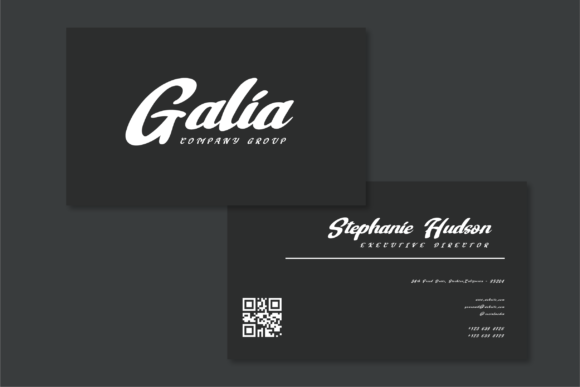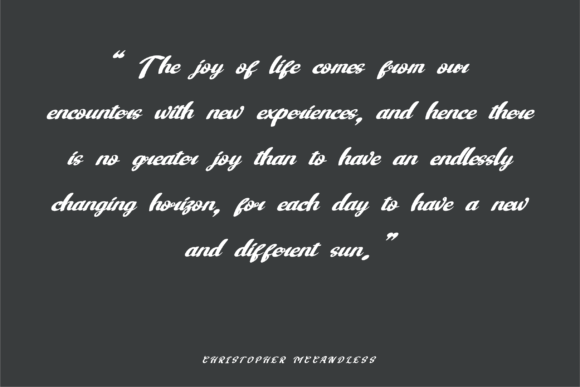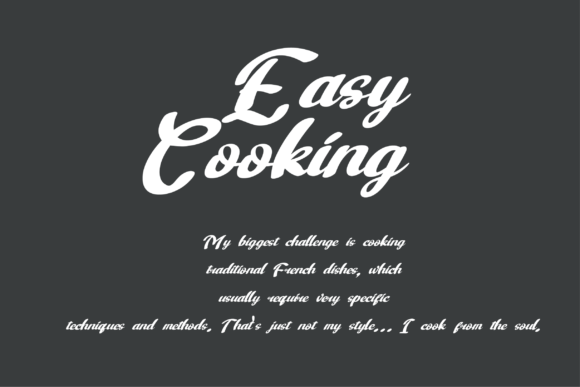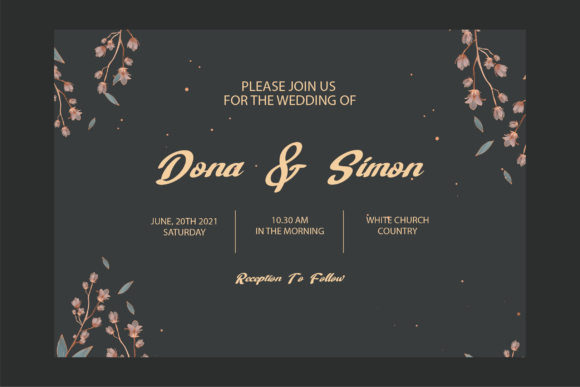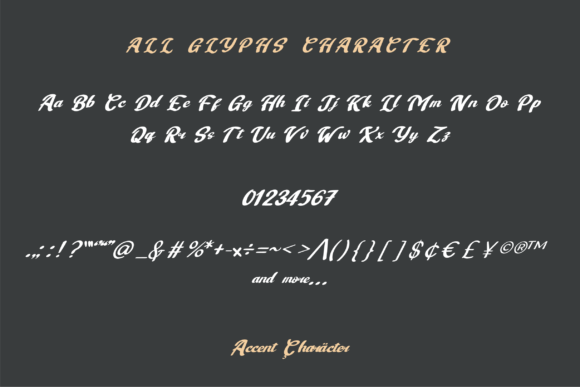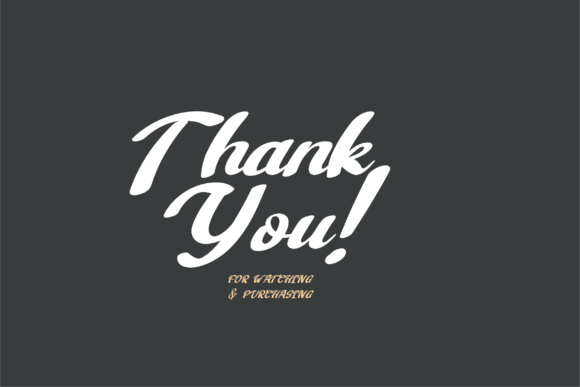
Meet the Font that’s About to Steal Your Heart
There’s nothing quite like the thrill of creating something from scratch, is there? The sound of a pen gliding across paper, the rush of ideas flowing onto the page – it’s a feeling that never gets old. And for designers, this moment of creative freedom is what makes all the hard work worth it. Whether you’re crafting a logo, designing a social media campaign, or working on a crafty DIY project, the right font can make all the difference.
Enter the Alaymen Font – a playful, handwritten font that’s perfect for adding a touch of personality to your work. Created using a brush pen, this font is clean, quirky, and totally on-trend. And for designers, it’s a valuable addition to any toolkit. With its versatility and charm, the Alaymen Font is sure to become a go-to choice for all your creative endeavors.
- Unique Characteristics: Alaymen Font features a unique blend of modern and traditional design elements, with a distinctive x-height and letter spacing.
Alaymen Font Review
Overall, I was impressed with the Alaymen Font. Its unique design and stylish feel make it a great choice for creative projects. ✨ The font’s elegant lines and subtle curves give it a sophisticated look that’s perfect for luxury brands, fashion, and high-end publications.
- Unique and stylish design that sets it apart from more common fonts
- Highly legible, even at small sizes
- Supports a wide range of languages
- Available in multiple weights and styles
- May not be suitable for body text, as it can be quite ornate
- Not ideal for digital displays, as it can appear blurry
- Not included in the standard font libraries of all operating systems
Overall, I would recommend the Alaymen Font for projects where a touch of elegance and sophistication is needed. While it may have some limitations, its unique design and high-quality rendering make it a great choice for creative professionals.
Tips for Getting the Most Out of Alaymen Font
For optimal results, use Alaymen Font in conjunction with bold and italic formatting to add emphasis to your text. Experiment with different font sizes and colors to create visually striking designs.
Alaymen Font is commonly used for creating:
- Headings and titles
- Editorial and publishing materials